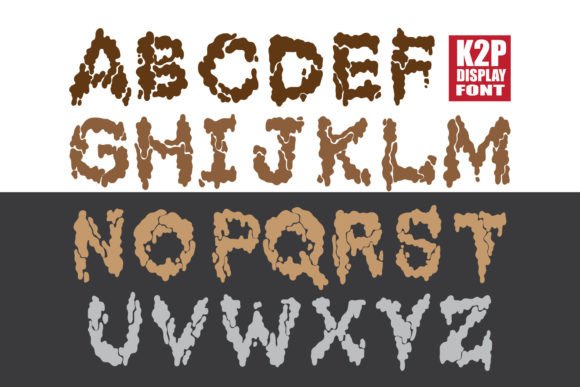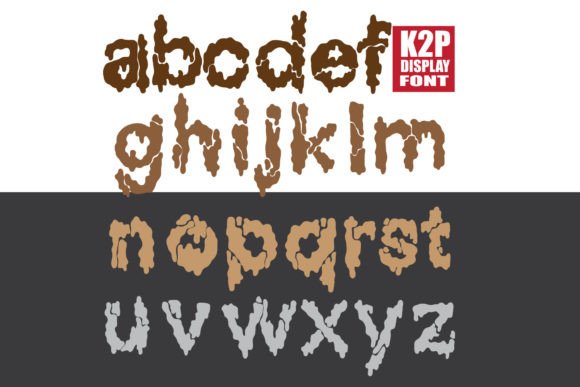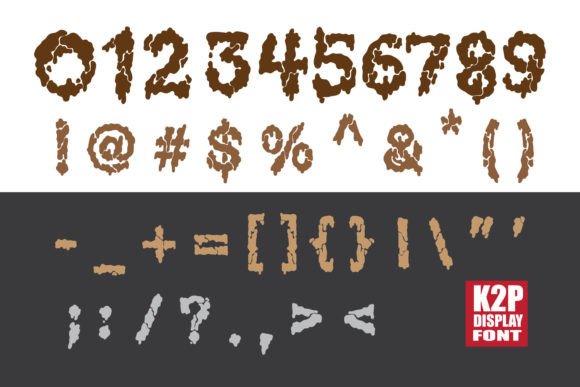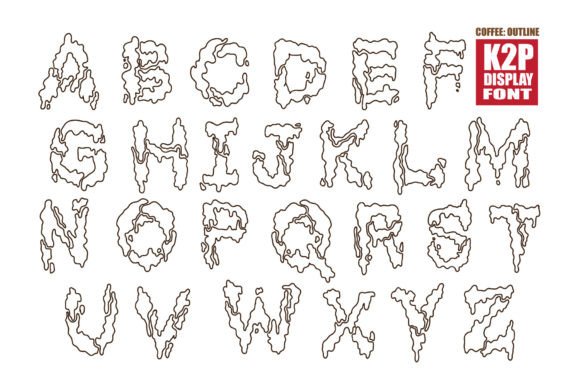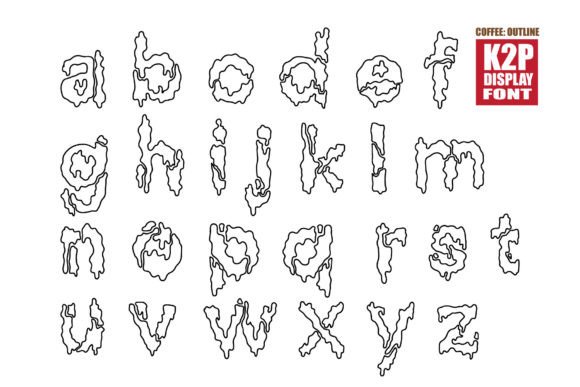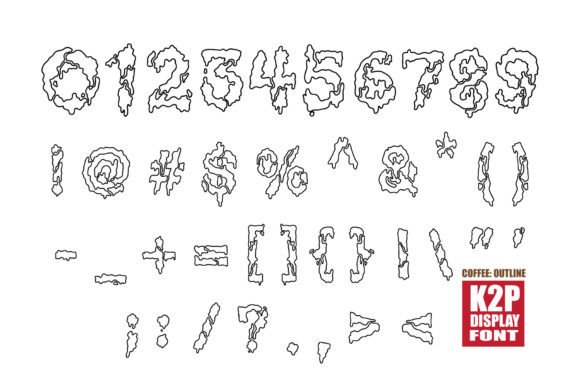
Coffee Font: The Perfect Blend of Fun and Versatility
Are you tired of using the same old fonts for your designs? Look no further than the Coffee Font, a fun, retro, and unique display font that’s sure to perk up your creative projects. With its incredibly versatile design, this font is suitable for a wide spectrum of applications, from crafting and baking to branding and advertising.
A Brief Introduction to Coffee Font
Coffee Font is a display font that’s designed to grab attention and add a touch of whimsy to your designs. Its retro vibe is reminiscent of classic coffee shop signs and vintage advertisements, making it perfect for businesses and brands that want to evoke a sense of nostalgia and warmth. The font’s unique design features bold lines, playful curves, and a dash of personality, making it a standout in any design.
What Makes Coffee Font So Versatile?
One of the things that sets Coffee Font apart from other display fonts is its incredible versatility. Whether you’re designing a logo, creating a social media graphic, or crafting a flyer, this font can adapt to any style or theme. Here are just a few examples of how you can use Coffee Font in your designs:
- Crafting and Baking: Use Coffee Font to add a personal touch to your crafting or baking projects. Create custom labels, tags, or signs that showcase your brand’s personality and style.
- Branding and Advertising: Coffee Font is perfect for businesses that want to stand out from the crowd. Use it to create eye-catching logos, advertisements, or social media graphics that grab attention and drive engagement.
- Events and Parties: Add a touch of whimsy to your event or party decorations with Coffee Font. Create custom banners, signs, or invitations that set the tone for a fun and festive celebration.
Key Features of Coffee Font
So what makes Coffee Font so special? Here are some of its key features:
- Unique Design: Coffee Font features a one-of-a-kind design that’s sure to turn heads.
- Retro Vibe: The font’s retro vibe is perfect for businesses and brands that want to evoke a sense of nostalgia and warmth.
- Bold and Playful: Coffee Font features bold lines and playful curves that add a touch of personality to any design.
- Highly Versatile: This font can be used in a wide range of applications, from crafting and baking to branding and advertising.
Tips for Using Coffee Font in Your Designs
Here are a few tips for getting the most out of Coffee Font in your designs:
- Experiment with Colors: Coffee Font looks great in a variety of colors, so don’t be afraid to experiment and find the perfect hue for your design.
- Play with Pairings: Try pairing Coffee Font with other fonts or design elements to create a unique and eye-catching look.
- Keep it Simple: Don’t overcomplicate your design. Coffee Font is perfect for simple, bold designs that get your message across.
| Font Name | Coffee Font |
| Author | KtwoP |